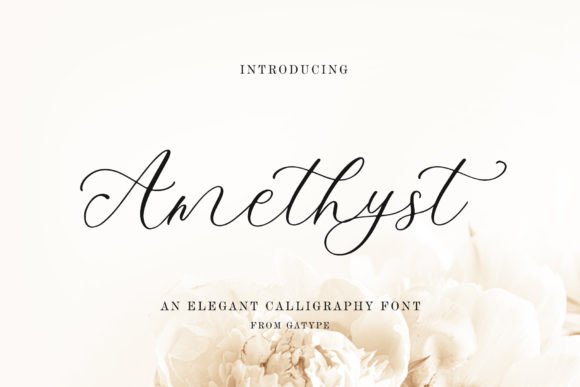
About Amethyst Font
Amethyst is a modern calligraphy font. This font is casual and pretty with a stroke. Can be used for various purposes, such as logos, product packaging, wedding invitations, branding, headlines, signage, labels, signatures, book covers, posters, quotes, and more. This font is PUA encoded, which means you can access all of the glyphs and swashes with ease!